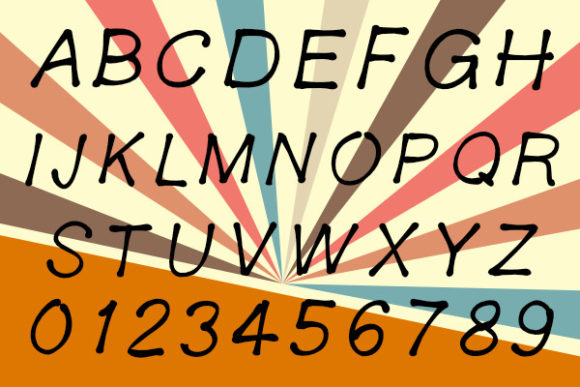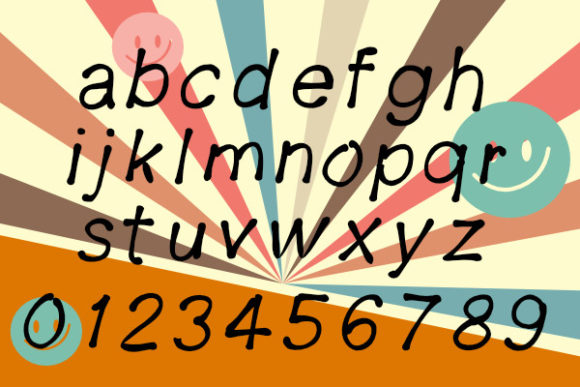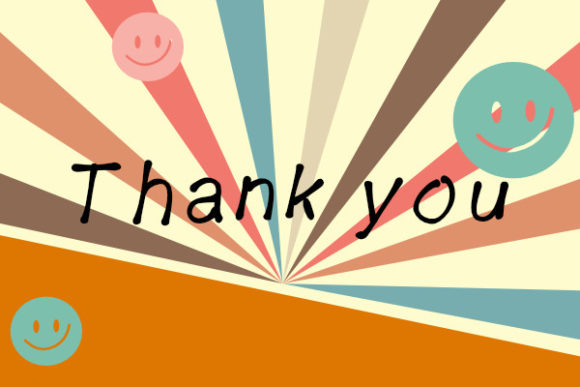
Budo Font: The Perfect Handwritten Font for Chalkboard Quotes and Teaching Materials
Are you a designer or crafter looking for a unique and authentic font to add a personal touch to your designs? Look no further than Budo Font! This cute, quirky, and slightly sloppy handwritten font is perfect for creating chalkboard quotes, teaching materials, and other designs that require a personal and realistic feel.
What is Budo Font?
Budo Font is a handwritten font that is designed to mimic the look and feel of chalkboard writing. Its authentic and slightly imperfect design makes it perfect for creating designs that require a personal touch. The font is characterized by its cute and quirky style, with letters that are slightly sloppy and uneven, giving it a charming and endearing quality.
Features of Budo Font
Budo Font has several features that make it an ideal choice for designers and crafters. Some of its key features include:
• Cute and Quirky Design: Budo Font has a unique and charming design that is sure to capture the attention of your audience.
• Authentic Look and Feel: The font is designed to mimic the look and feel of chalkboard writing, giving your designs a personal and realistic feel.
• Handwritten Style: Budo Font is a handwritten font that is perfect for creating designs that require a personal touch.
• Versatile: The font can be used for a wide range of designs, including chalkboard quotes, teaching materials, posters, and more.
Uses of Budo Font
Budo Font is a versatile font that can be used for a wide range of designs. Some of the most popular uses of the font include:
• Chalkboard Quotes: Budo Font is perfect for creating chalkboard quotes that are both inspiring and visually appealing.
• Teaching Materials: The font can be used to create teaching materials, such as worksheets, posters, and presentations, that are engaging and easy to read.
• Posters and Flyers: Budo Font can be used to create eye-catching posters and flyers that are perfect for advertising events, products, or services.
• Social Media Graphics: The font can be used to create social media graphics, such as Facebook posts, Instagram stories, and Twitter headers, that are visually appealing and engaging.
Benefits of Using Budo Font
There are several benefits to using Budo Font in your designs. Some of the most significant benefits include:
• Unique and Authentic Design: Budo Font has a unique and authentic design that is sure to capture the attention of your audience.
• Easy to Read: The font is easy to read, even at small sizes, making it perfect for creating designs that require a lot of text.
• Versatile: Budo Font can be used for a wide range of designs, making it a great addition to any designer’s font library.
• Time-Saving: The font can save you time and effort, as it eliminates the need to create your own handwritten font from scratch.
Tips for Using Budo Font
Here are some tips for using Budo Font in your designs:
• Use it for Headings and Titles: Budo Font is perfect for creating headings and titles that are visually appealing and eye-catching.
• Pair it with Other Fonts: The font can be paired with other fonts to create a unique and visually appealing design.
• Experiment with Colors and Textures: Budo Font can be used with a wide range of colors and textures to create a unique and eye-catching design.
• Use it for Branding and Marketing Materials: The font can be used to create branding and marketing materials, such as logos, business cards, and brochures, that are visually appealing and professional.
Budo Font is a unique and versatile font that is perfect for designers and crafters who want to add a personal touch to their designs. Its authentic look and feel, cute and quirky design, and versatility make it an ideal choice for creating chalkboard quotes, teaching materials, posters, and more. With its ease of use and time-saving features, Budo Font is a great addition to any designer’s font library.